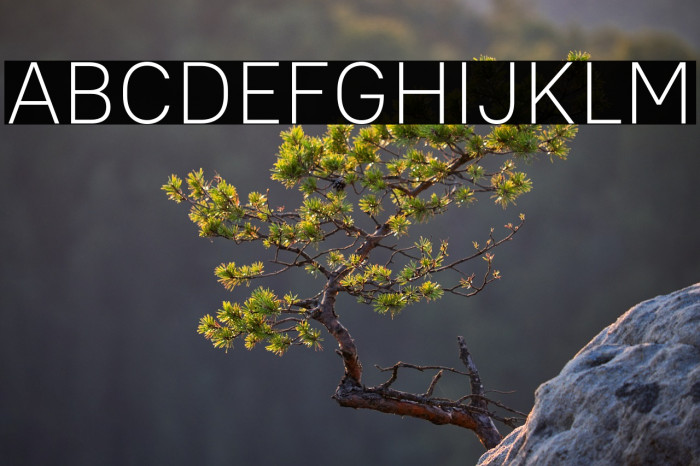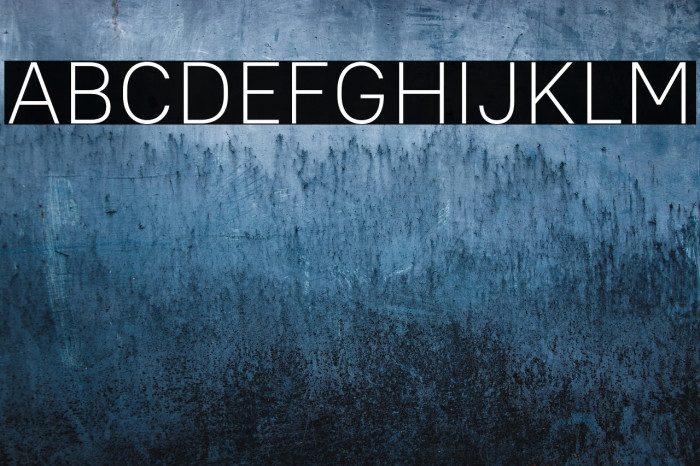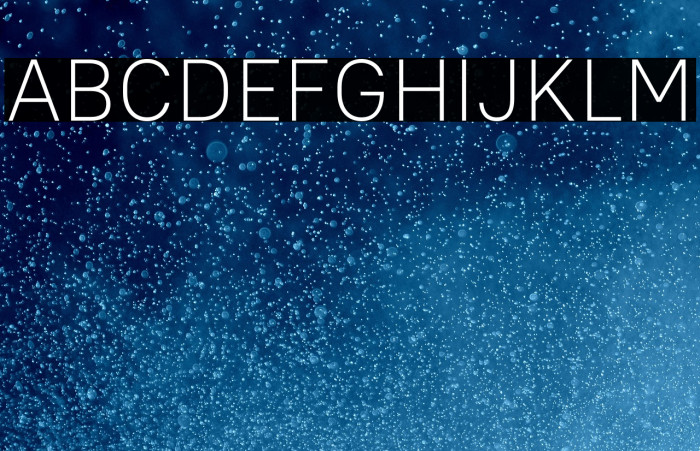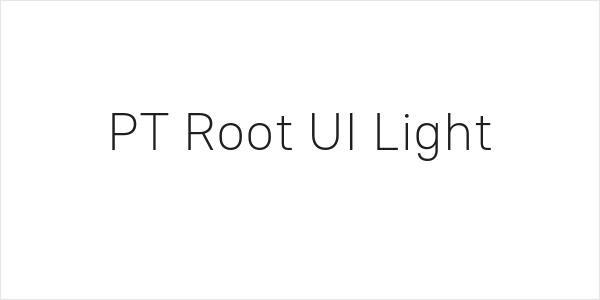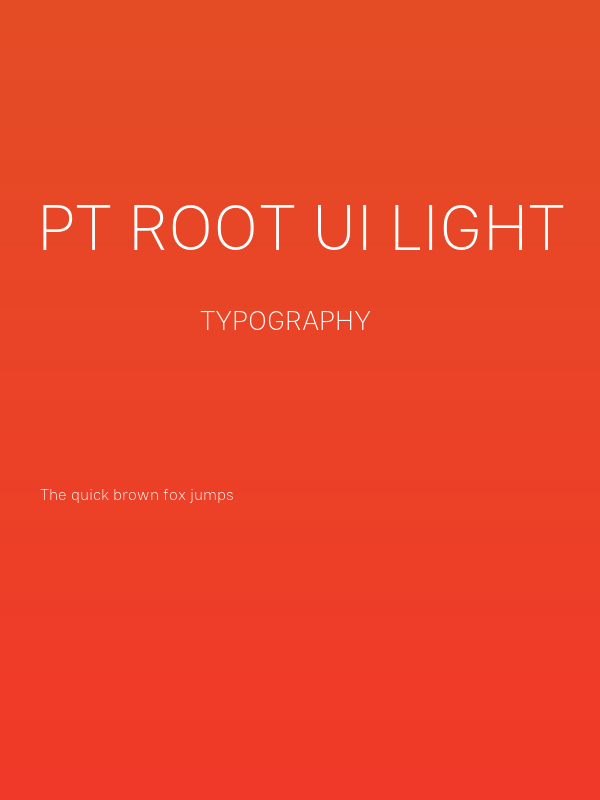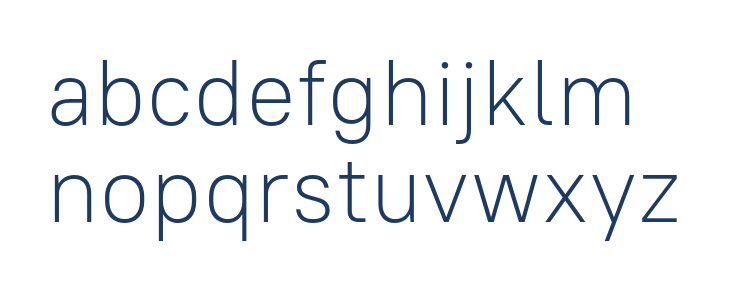
PT Root UI Light Font
PT Root UI Light Description
This font features a clean and modern sans-serif design with a focus on readability and simplicity. The characters are evenly spaced with a consistent stroke width, giving it a balanced and harmonious appearance. The uppercase and lowercase letters are well-proportioned, and the numerals are clear and distinct. The special characters are designed to complement the overall style, making it versatile for various applications. Its light weight and open forms make it suitable for digital interfaces and print media where clarity is essential.
| Use Case | Headlines, Body text, Logos |
| Proposed Projects | Ideal for user interfaces, websites, mobile apps, and print materials where clarity and modern aesthetics are important. |